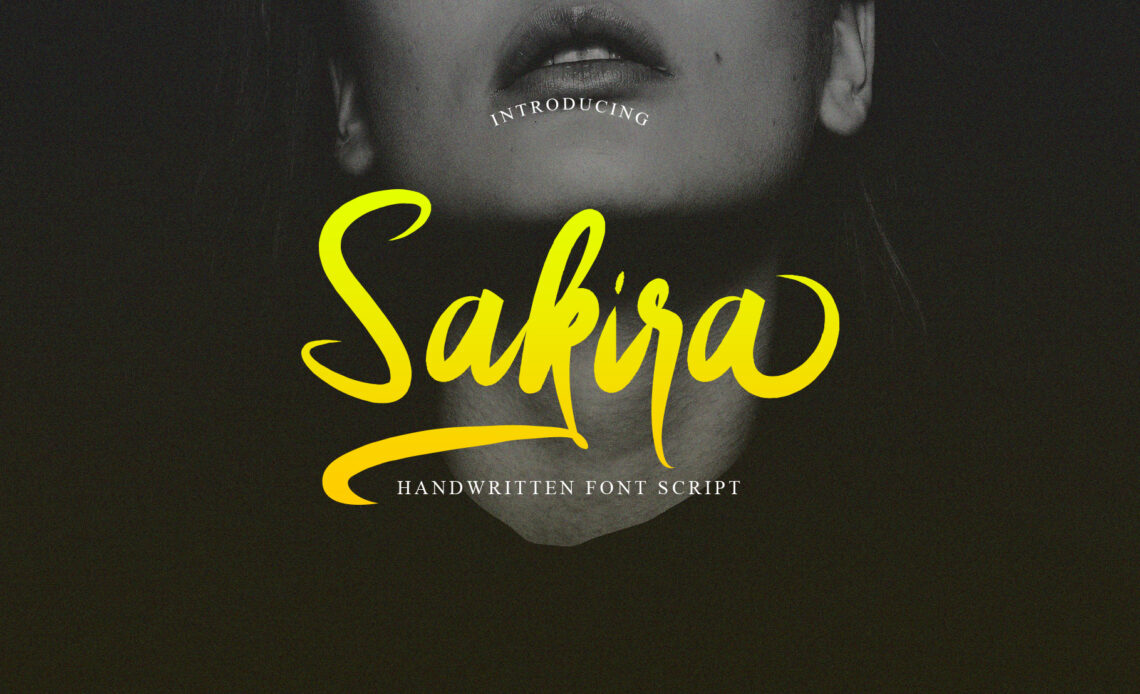
Introducing the Sakira Script font, a breathtaking masterpiece that captures the essence of elegance and artistry. Step into a world of visual enchantment as this script font captivates your senses with its graceful strokes and enchanting curves. Dive into the realm of creativity and let your imagination soar as you witness the magic of Sakira Script unfold before your eyes.
With its brush stroke appearance, Sakira Script emulates the allure of handwritten calligraphy. Each letter dances gracefully upon the page, creating a sense of movement and fluidity that is both captivating and alluring. Its decorative nature adds a touch of whimsical charm to any project, making it the perfect choice for invitations, headlines, and other special occasions.
Sakira Script is a versatile font that lends itself effortlessly to a wide range of design projects. Whether you're crafting a wedding invitation, designing a social media post, or creating a captivating logo, this font rises to the challenge, delivering exceptional results every time. Its versatility knows no bounds, allowing you to explore endless creative possibilities and bring your vision to life.
Immerse yourself in the world of Sakira Script and experience a font that sparks creativity and ignites inspiration. Let your imagination run wild as you explore the endless possibilities that await you. Embrace the beauty of this modern script font and watch as your designs transform into captivating works of art.